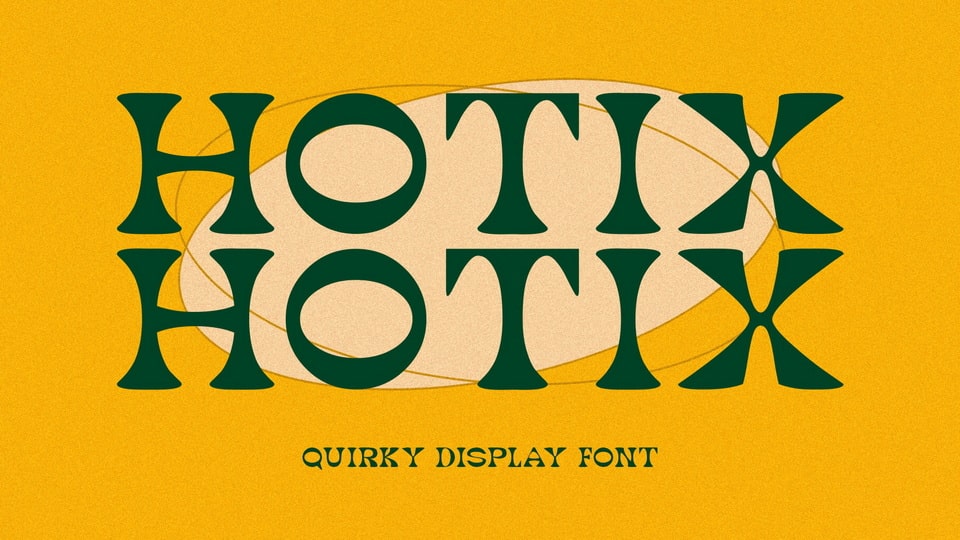
Download Hotix font, a quirky retro display typeface that combines vintage charm with modern creativity. It features bold curves, sharp contrasts, and playful letterforms that make your designs stand out effortlessly